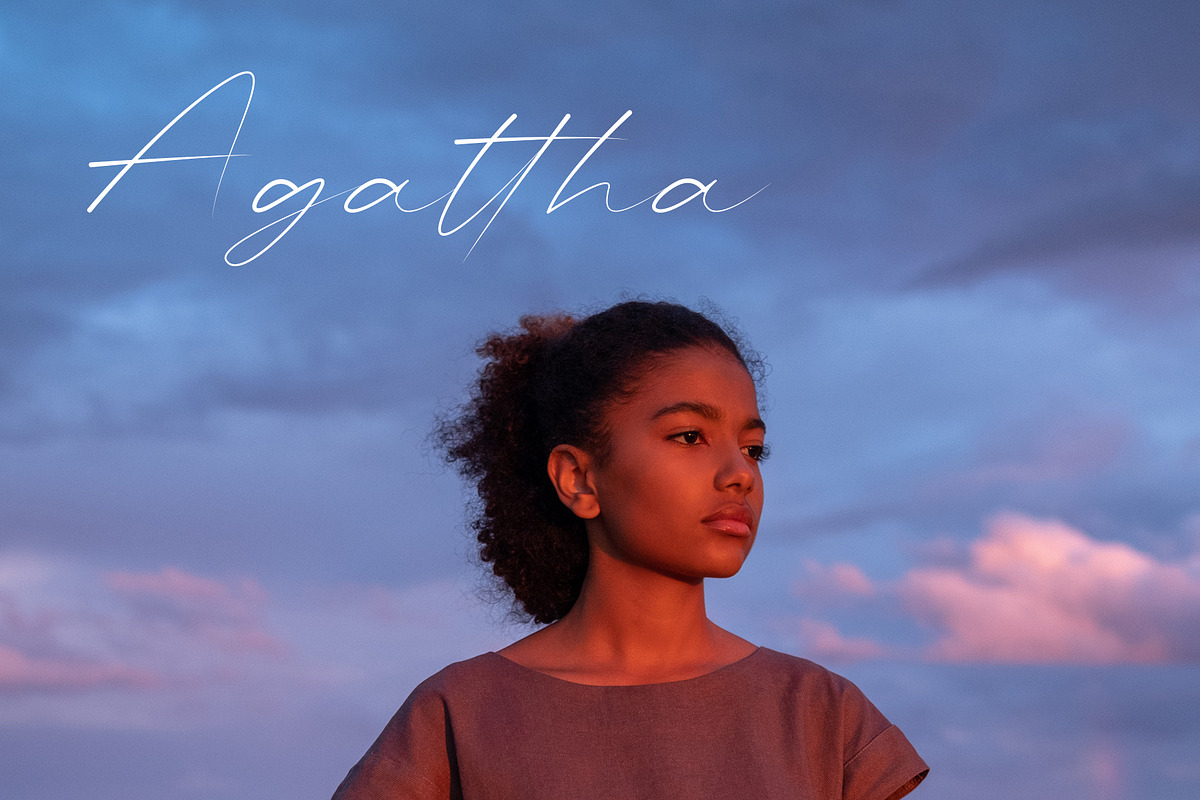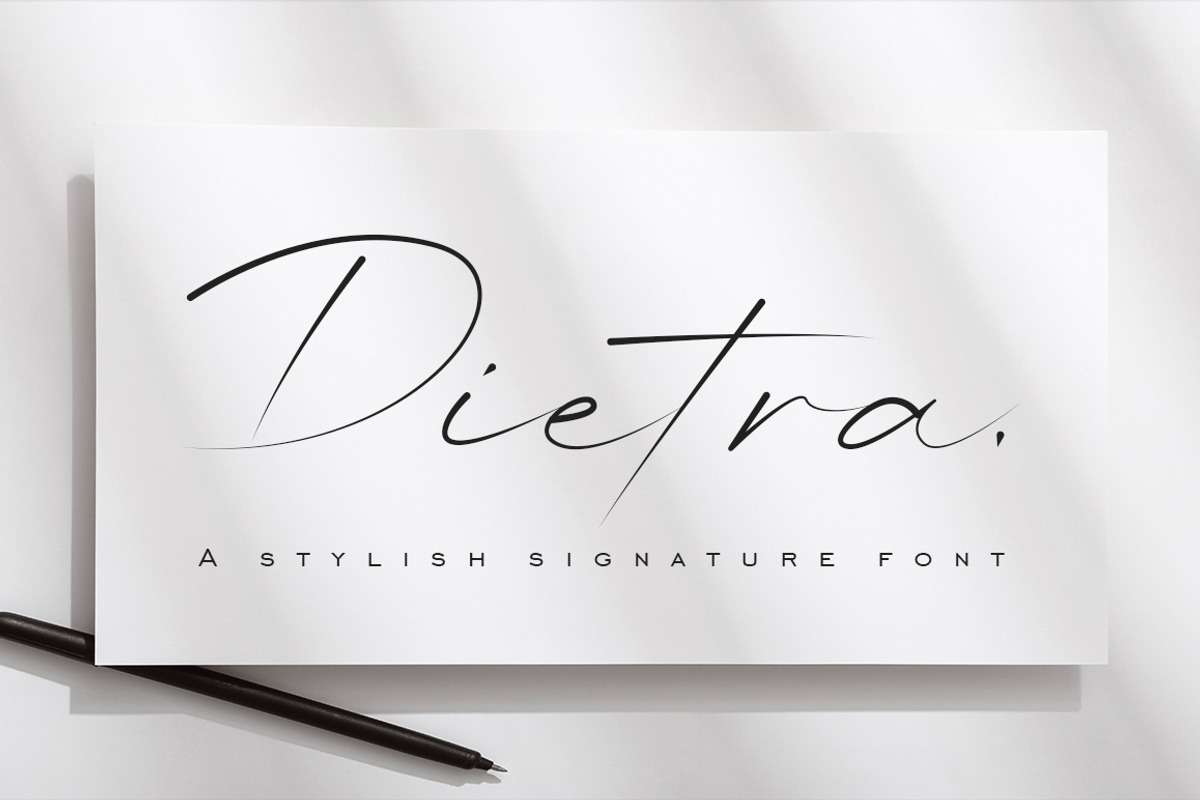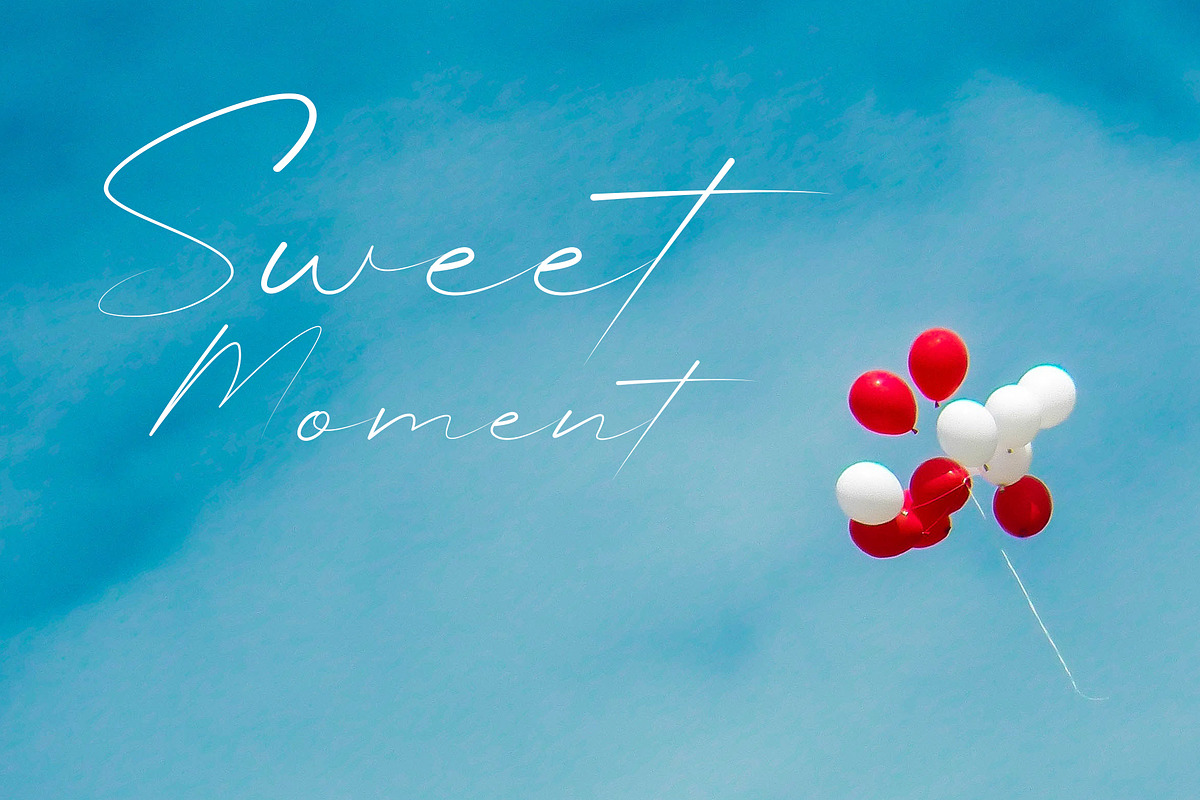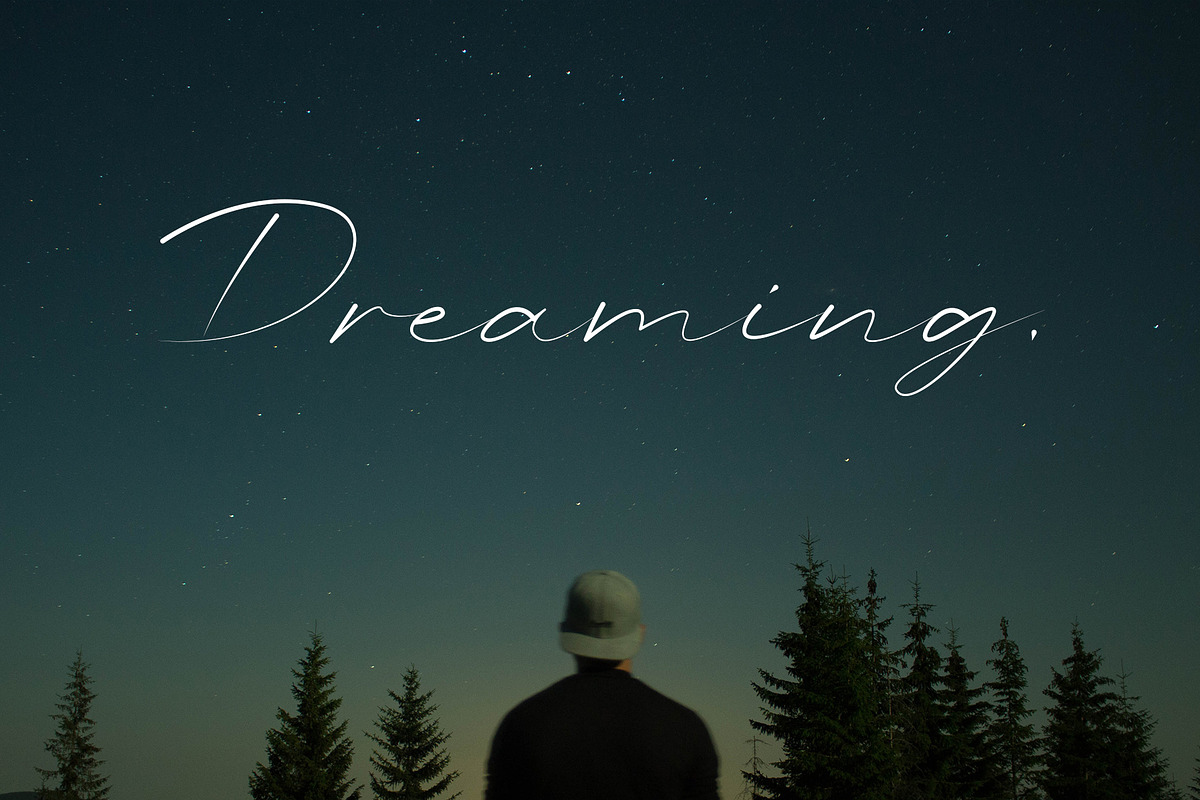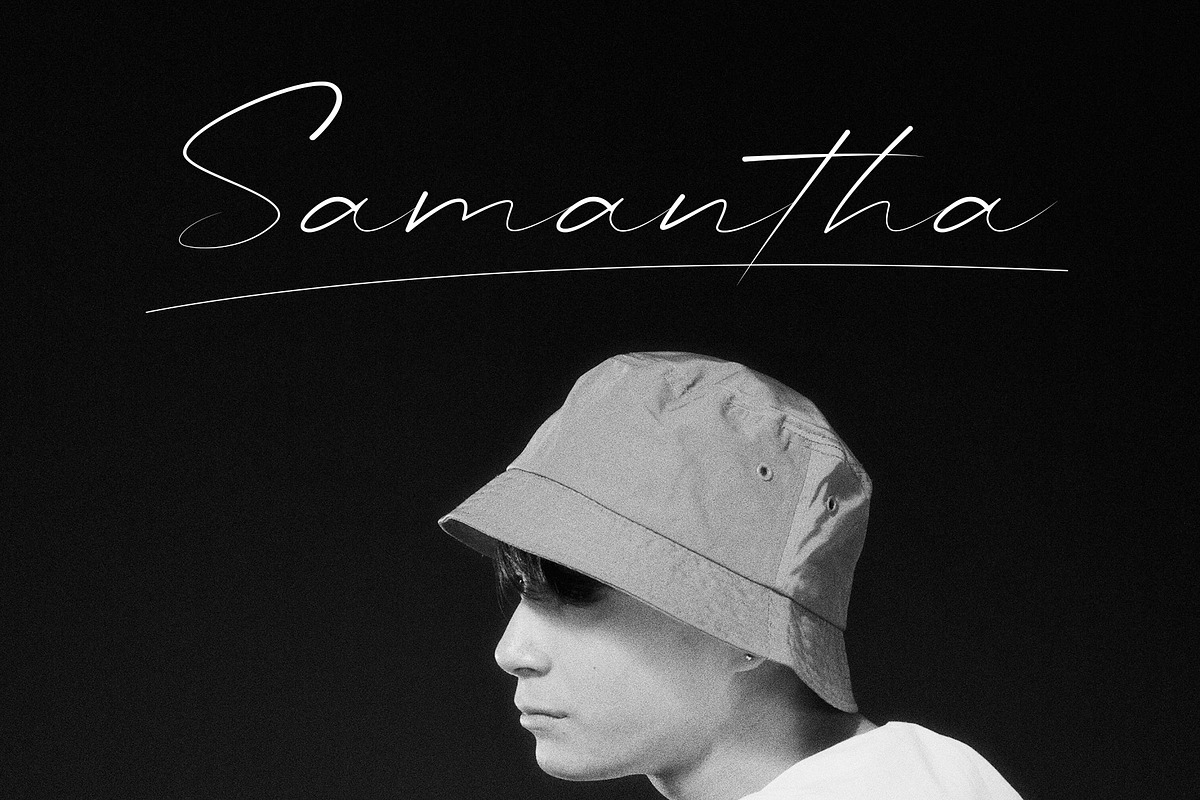
Dietra - Stylish Signature Font
Ditra is a natural, flowing, soft and subtle script font, crafted with character and an elegant touch. It's perfect for your favorite projects like album names, photography, quotes and many others that require a soft and stunning touch!